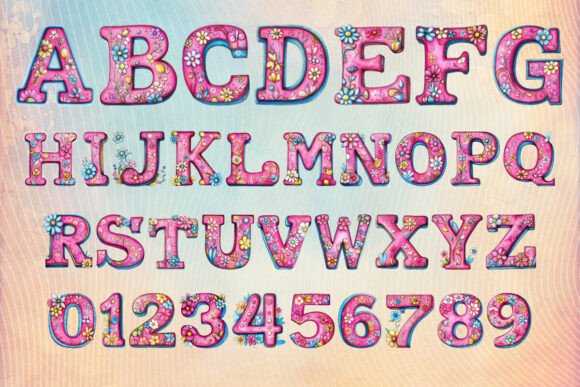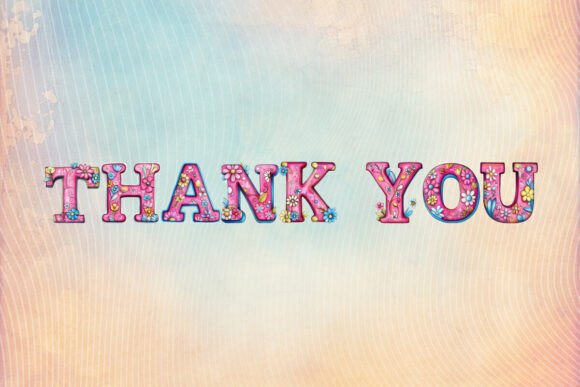
Introducing the Delightful Spring Flower Alphabet Font
Have you ever been working on a project, and suddenly, you’re stuck on finding the perfect font? I recall a recent experience where I was designing educational materials for kids, and I just couldn’t find a font that captured the playful, youthful spirit I was looking for. That’s when I stumbled upon the “Spring Flower Alphabet” font, and it completely transformed my design. In this article, we’ll dive into the world of this beautiful font, and explore its features, uses, and alternatives.
A Personal Review: What I Love and What to Consider
- ✨ The font’s unique and playful design, which turns letters into delicate pink flowers that exude the spirit of spring.
- ✅ The font’s versatility, making it perfect for educational materials, kid-centric websites, or any project seeking to bring a touch of youthful joy.
- ⚠️ The font is a color font (Opentype-SVG), which may require some extra steps to use in certain design software.
- Experiment with the font’s OpenType features, such as glyphs and stylistic alternates, to add more creativity to your design.
- Use the font’s color capabilities to add an extra layer of depth to your design.
The Designer Inspiration Behind the Spring Flower Alphabet Font
The Spring Flower Alphabet font was created by an artist who wanted to bring a touch of spring to typography. With meticulous pencil drawings transformed into playful letterings, this font is a true masterpiece. The artist’s goal was to create a font that would capture the wonder and excitement of children when it comes to nature, and I believe they’ve succeeded.
A: The Spring Flower Alphabet font is a color font (Opentype-SVG), which means it requires some extra steps to use in certain design software.